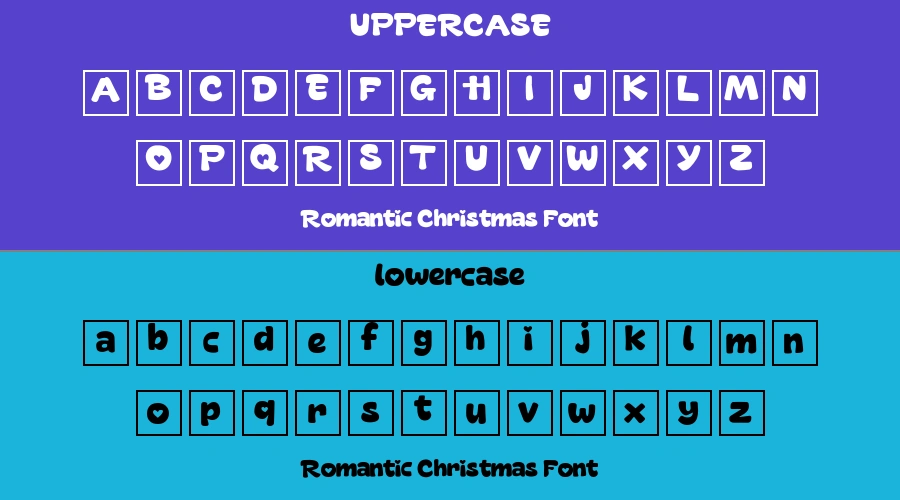
About Romantic Christmas Font
Romantic Christmas Font stands out for its distinctive combination of rhythmic patterns and craftsmanship. Ideal for advertising headers, it provides the adaptability and artistic merit that professional projects demand. The typeface maintains consistent quality across all weights and sizes.
Key features include refined measured spacing and practical pi characters, enhancing typographic expression. In data tables applications, Romantic Christmas Font demonstrates exceptional archive stability. The character width and professional recognition contribute to its distinctive character and professional appeal.